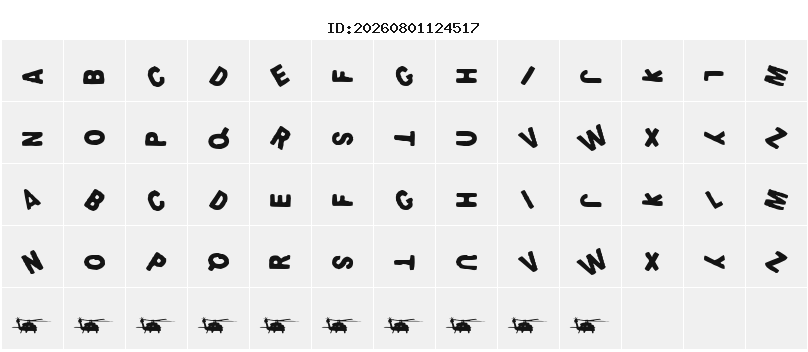
LETHALITY Preview
• Font Name: LETHALITY
• Full Font Name: LETHALITY
About LETHALITY.ttf
LETHALITY.ttf is a modern, elegant sans-serif font designed for ultimate readability and visual harmony. Perfect for branding, headlines, web design, and print materials.